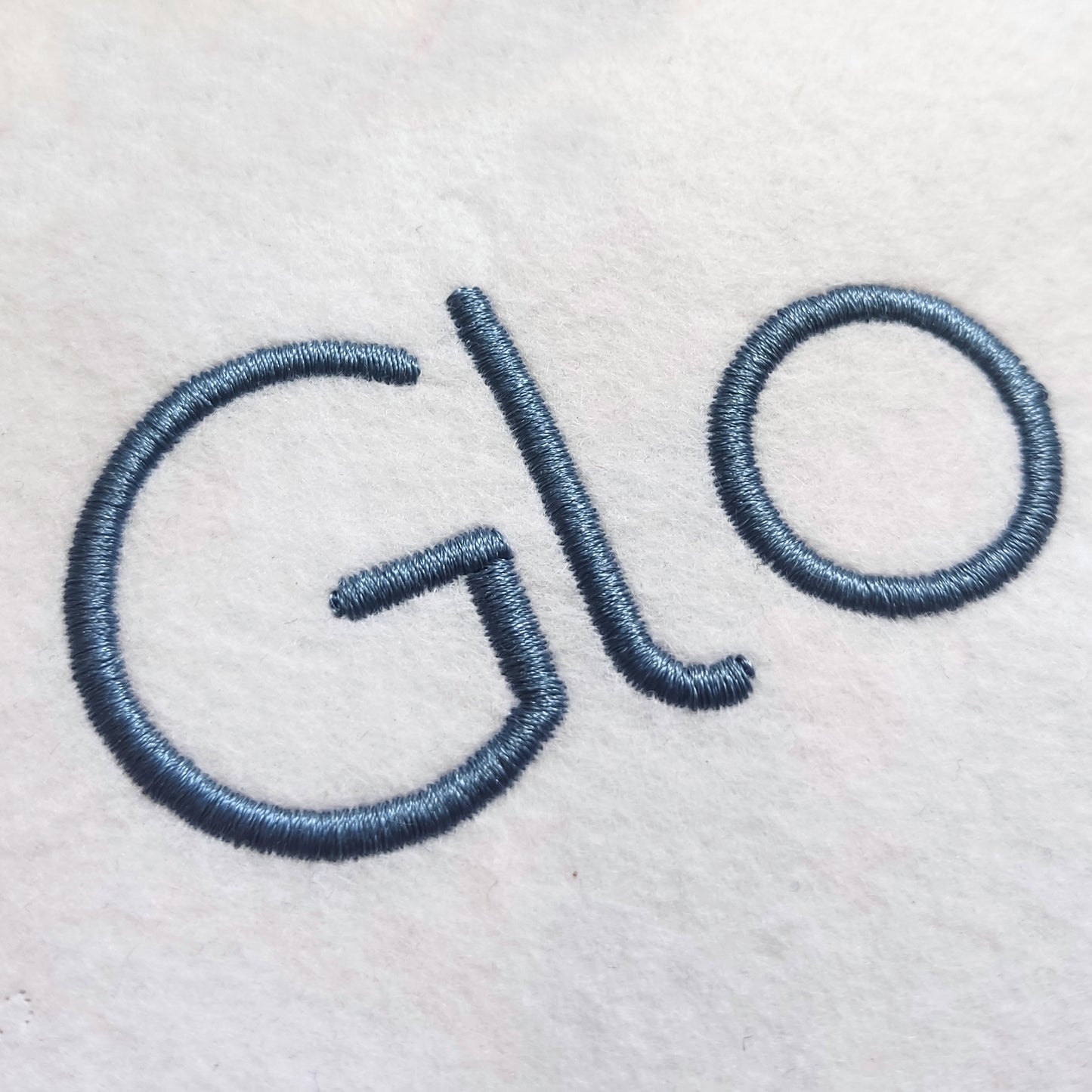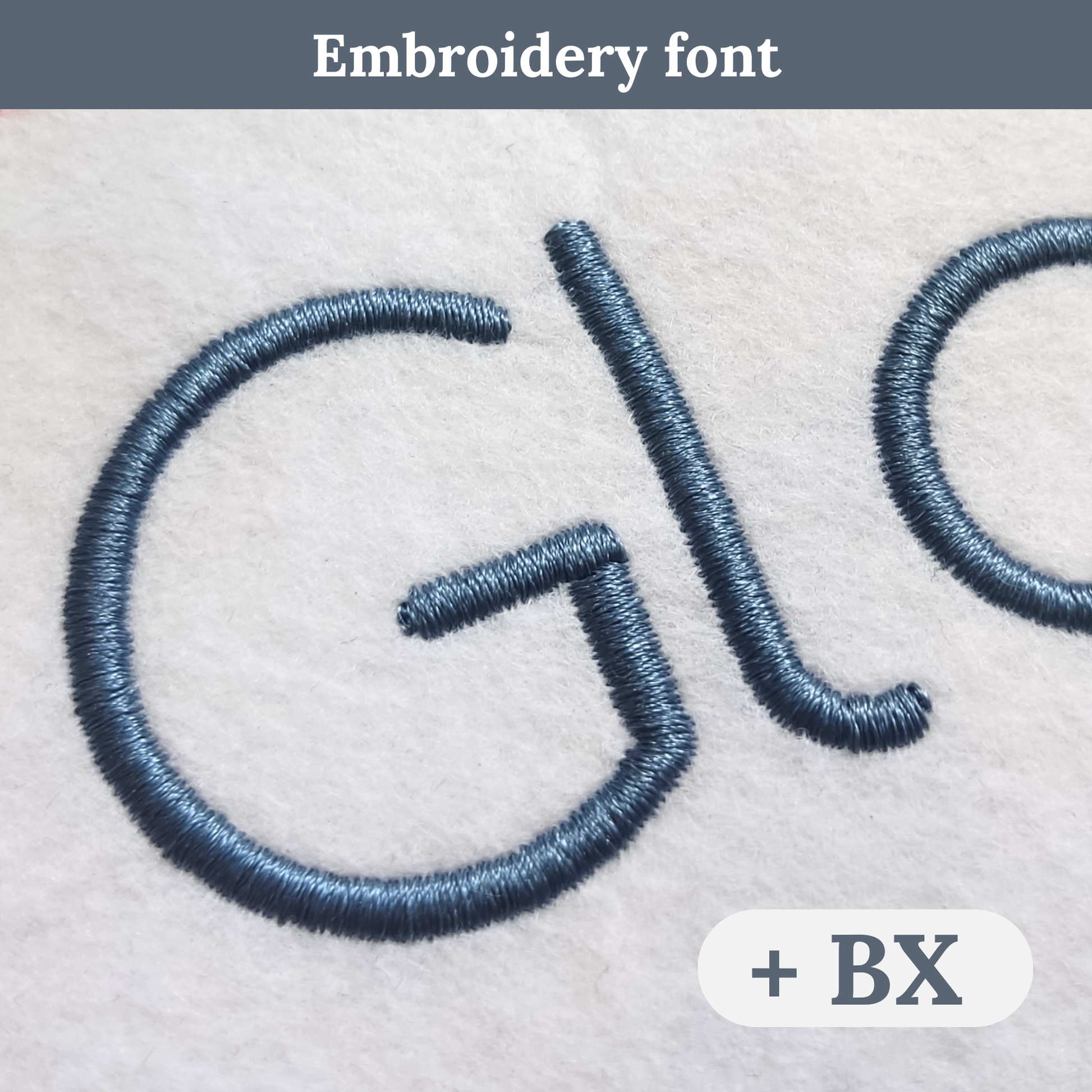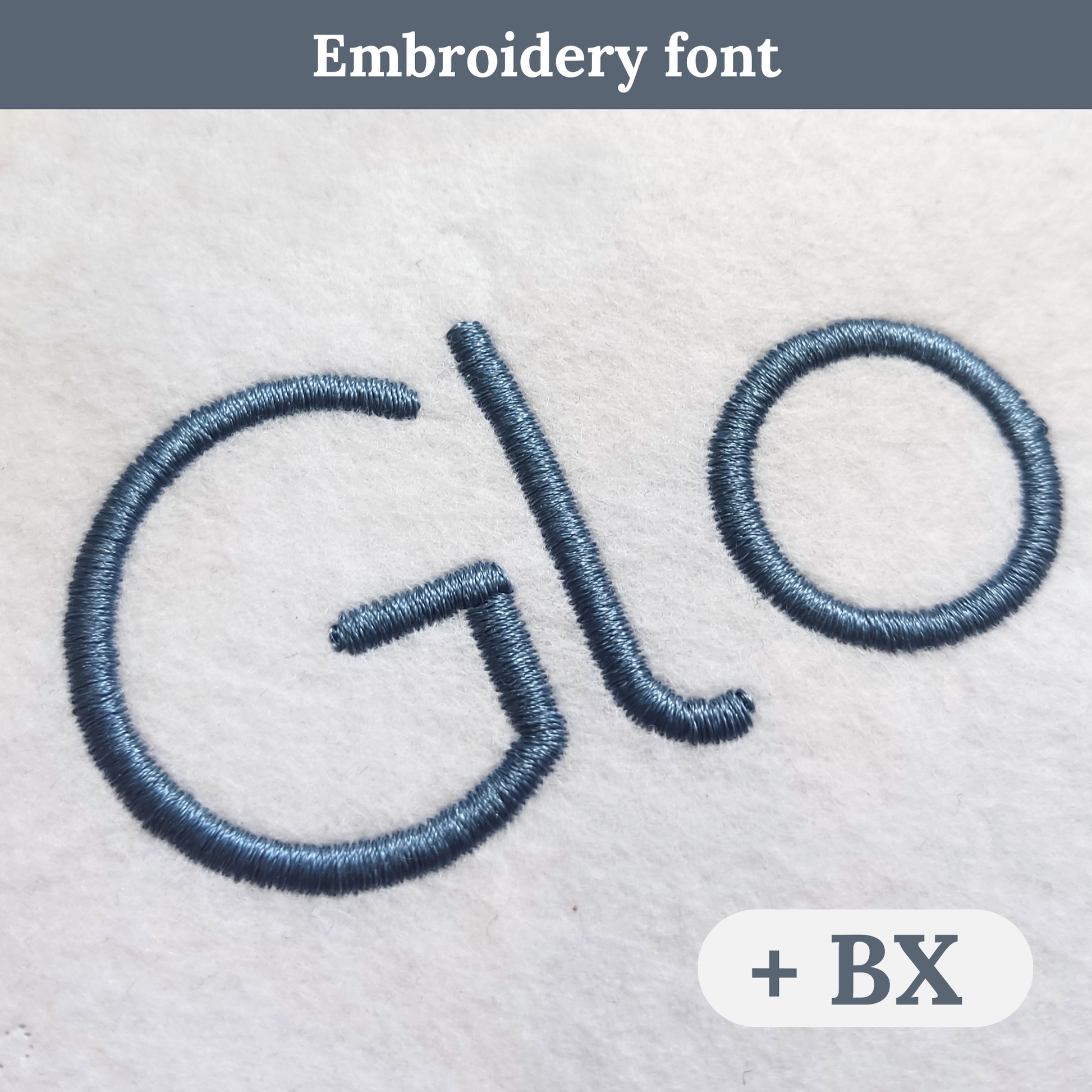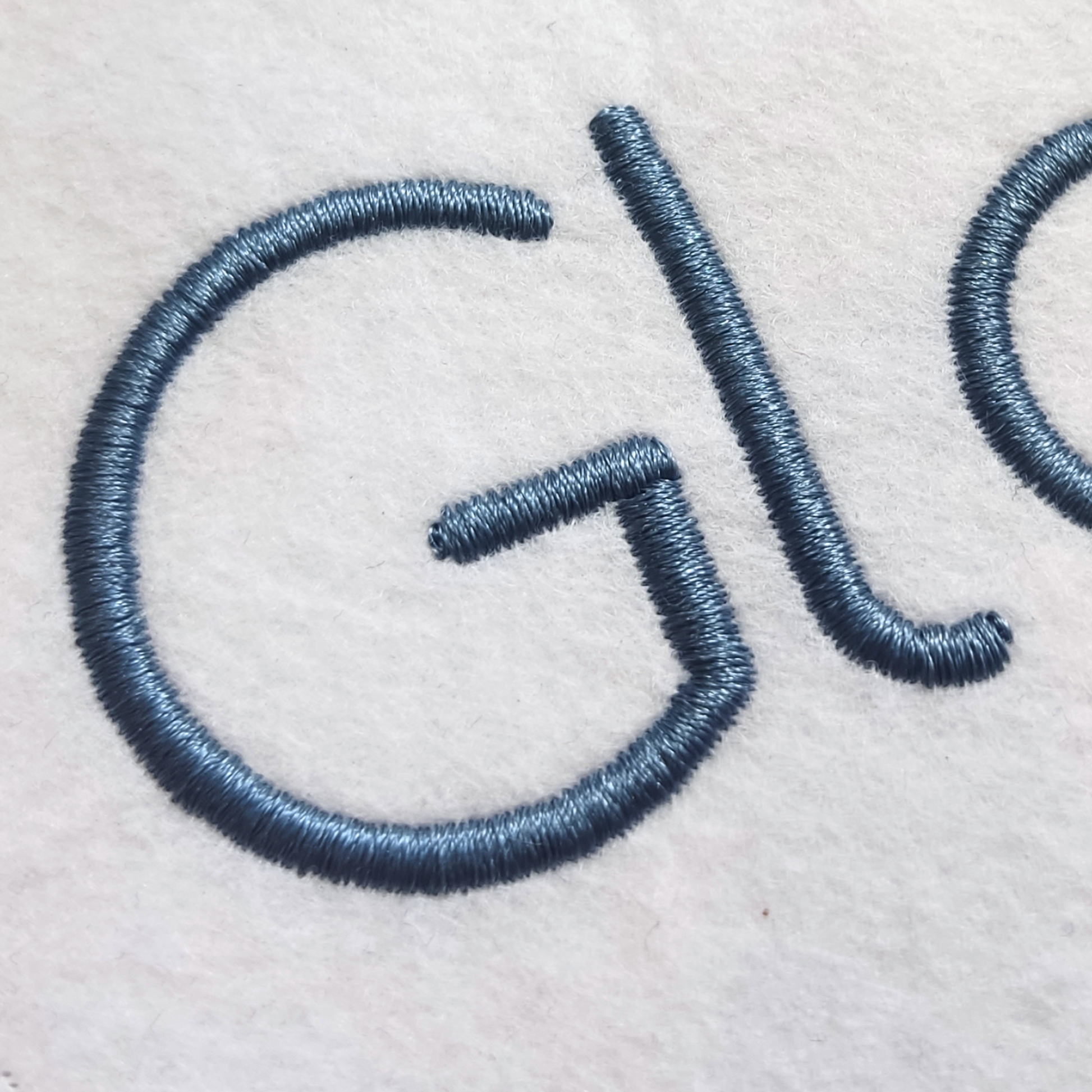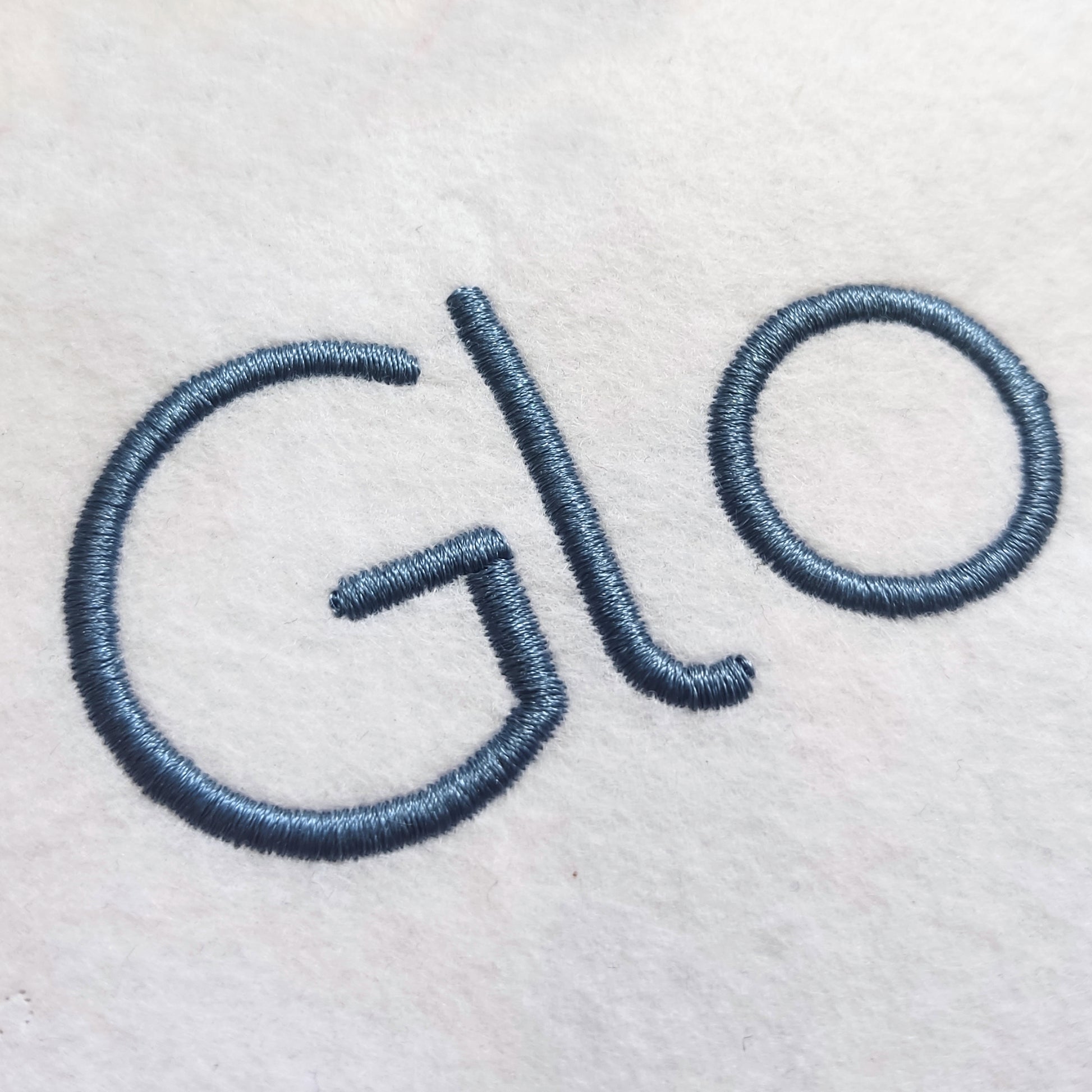
Gloria - Block embroidery font
This block machine embroidery font works well for names, monograms, towels, bags, apparel, and everyday personalized projects.
A strong choice for makers who want clean readable lettering for bold custom embroidery and practical stitched names.